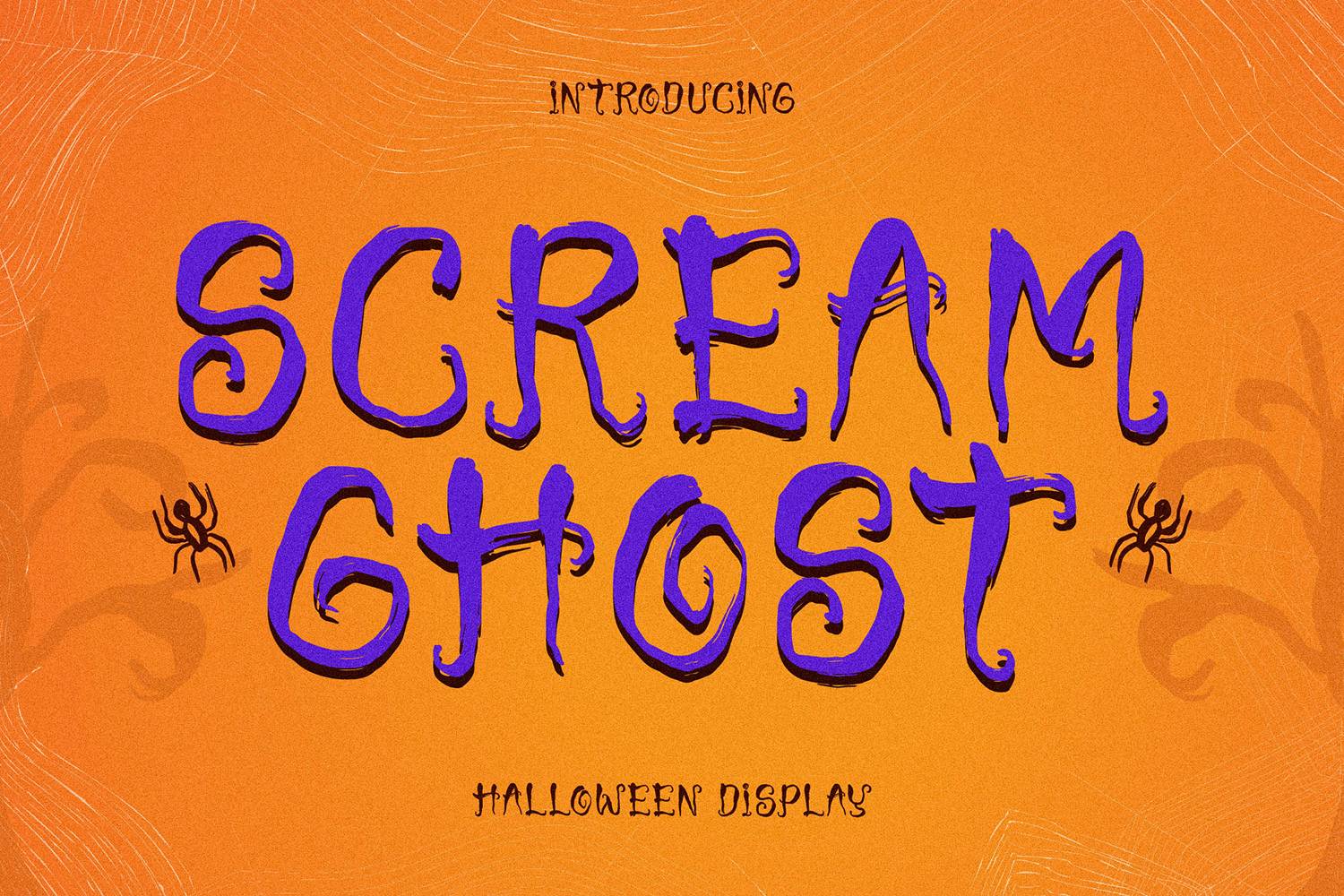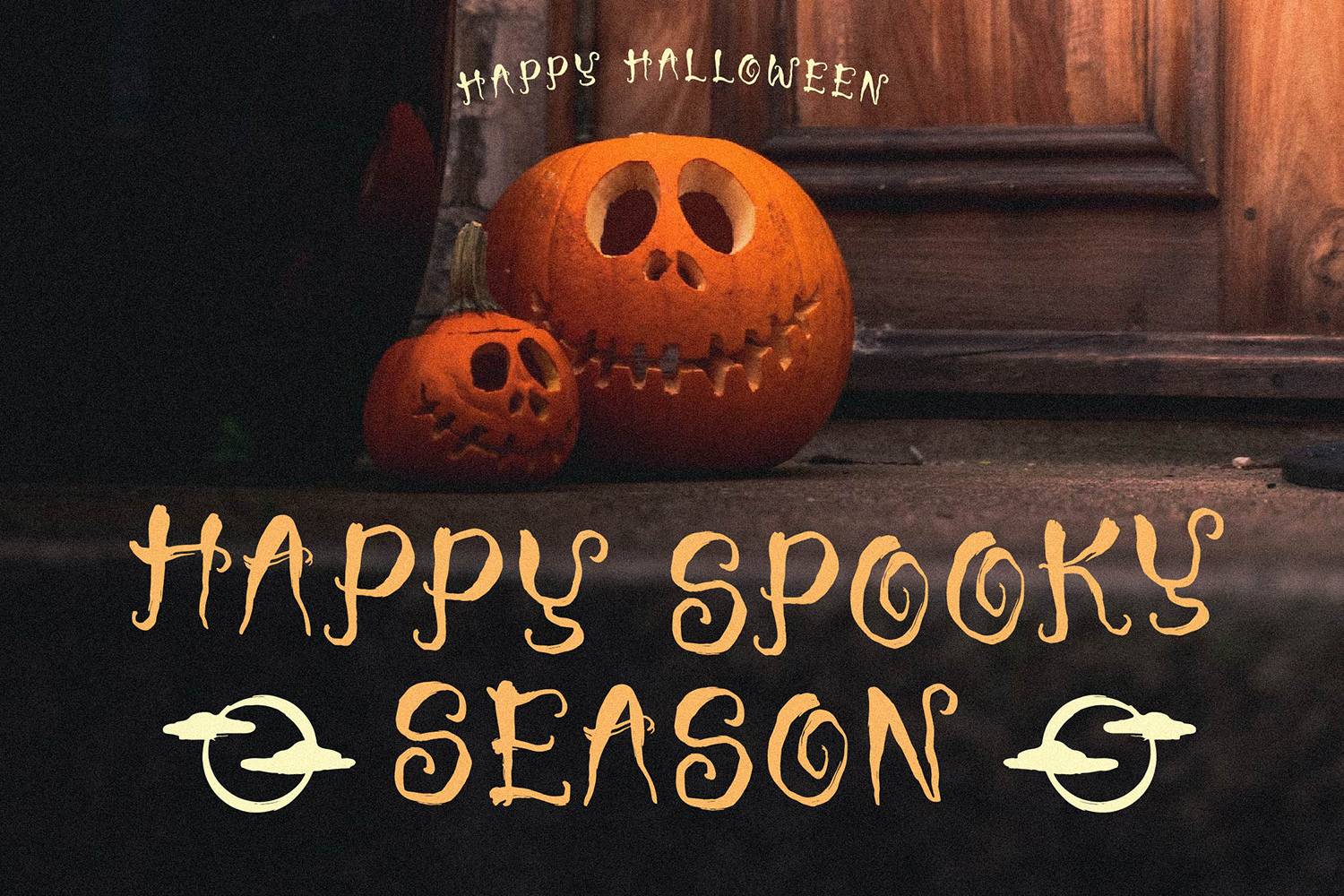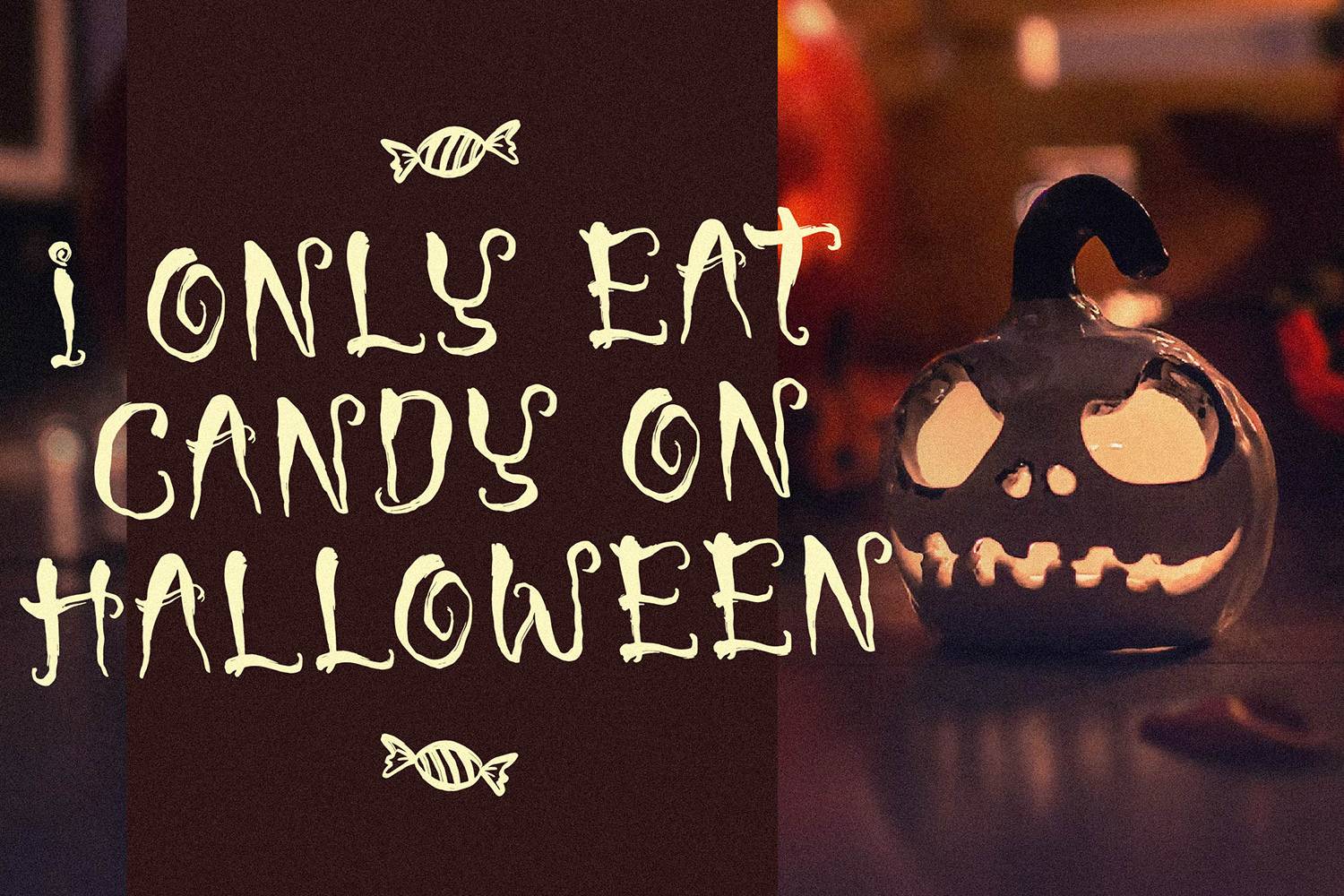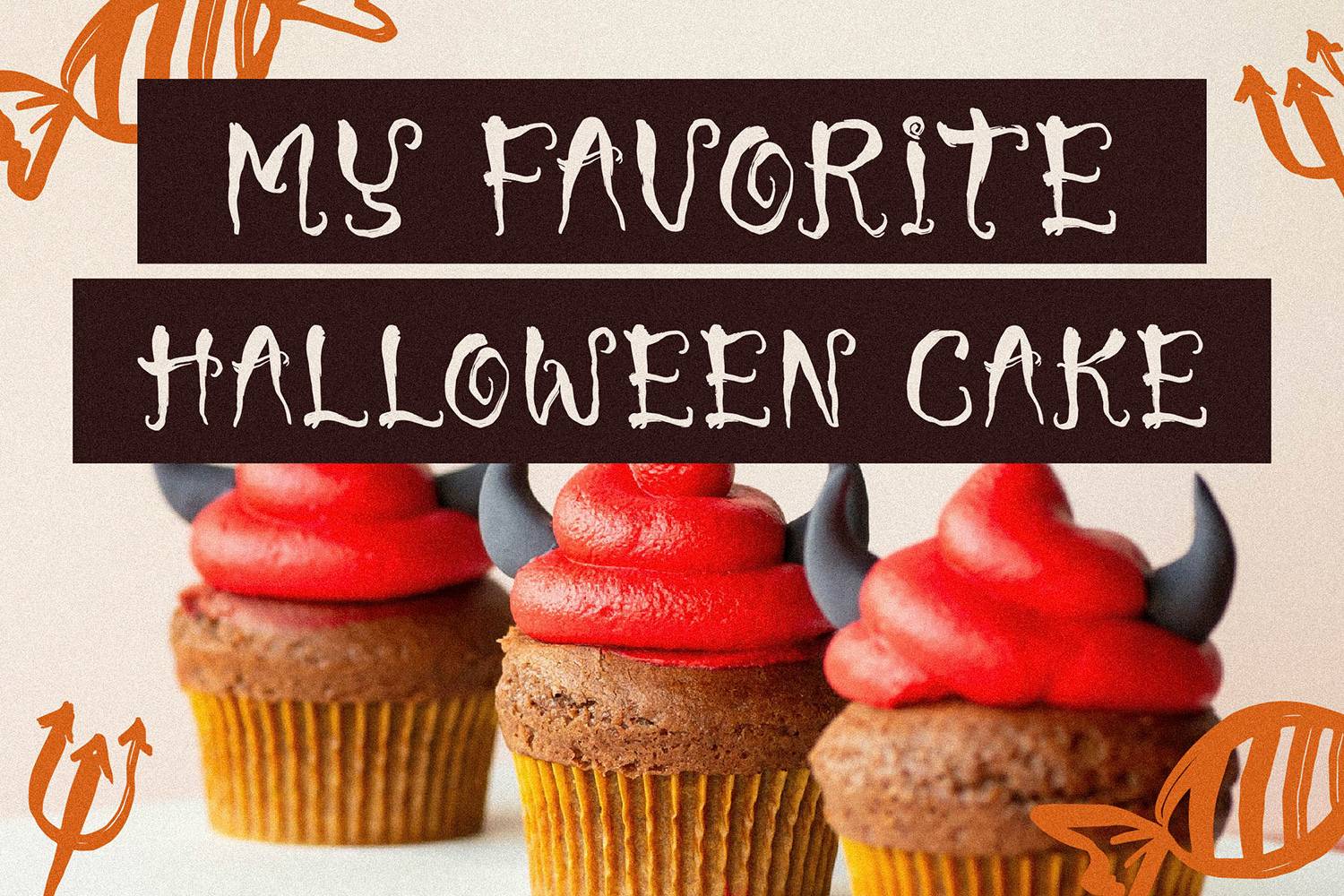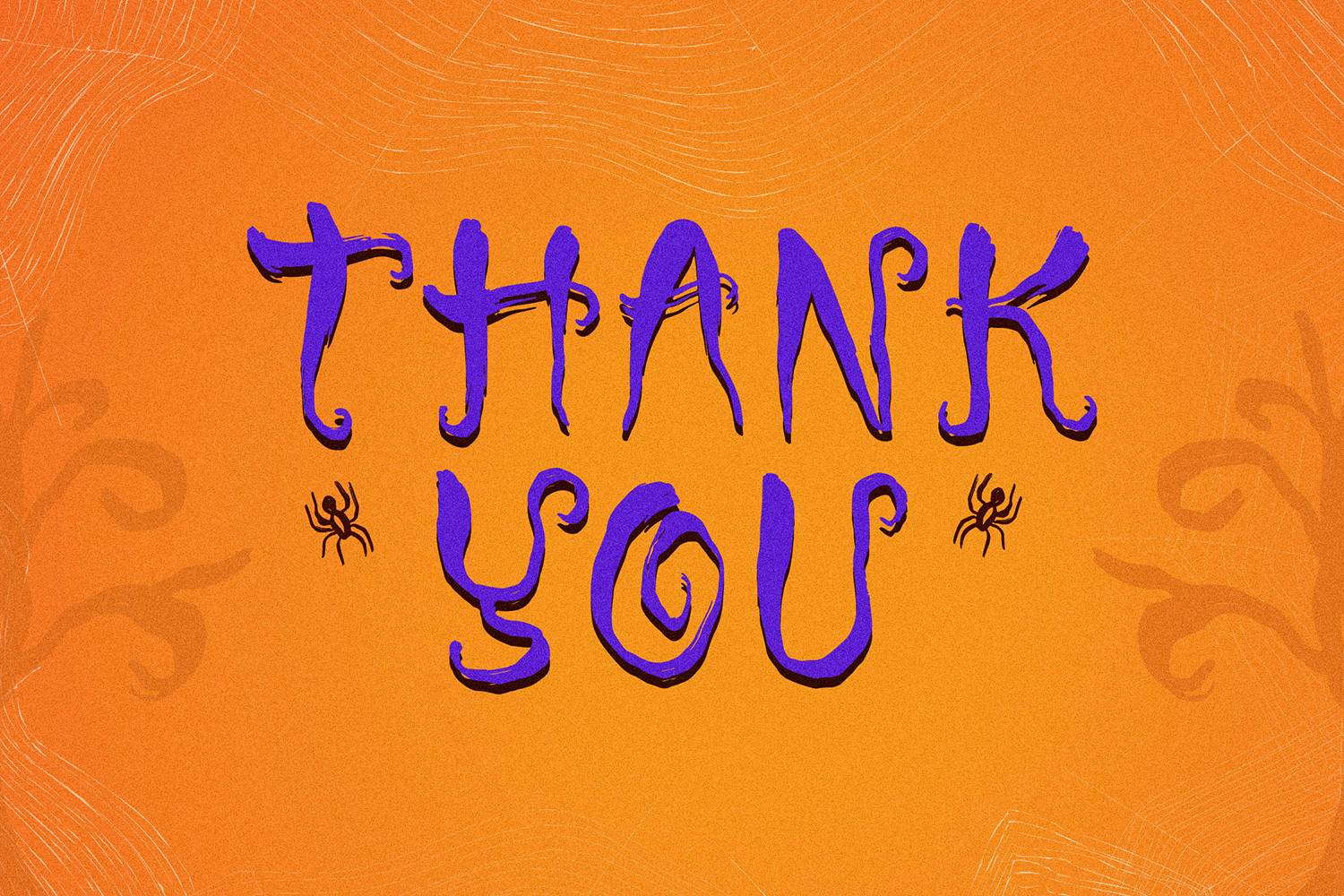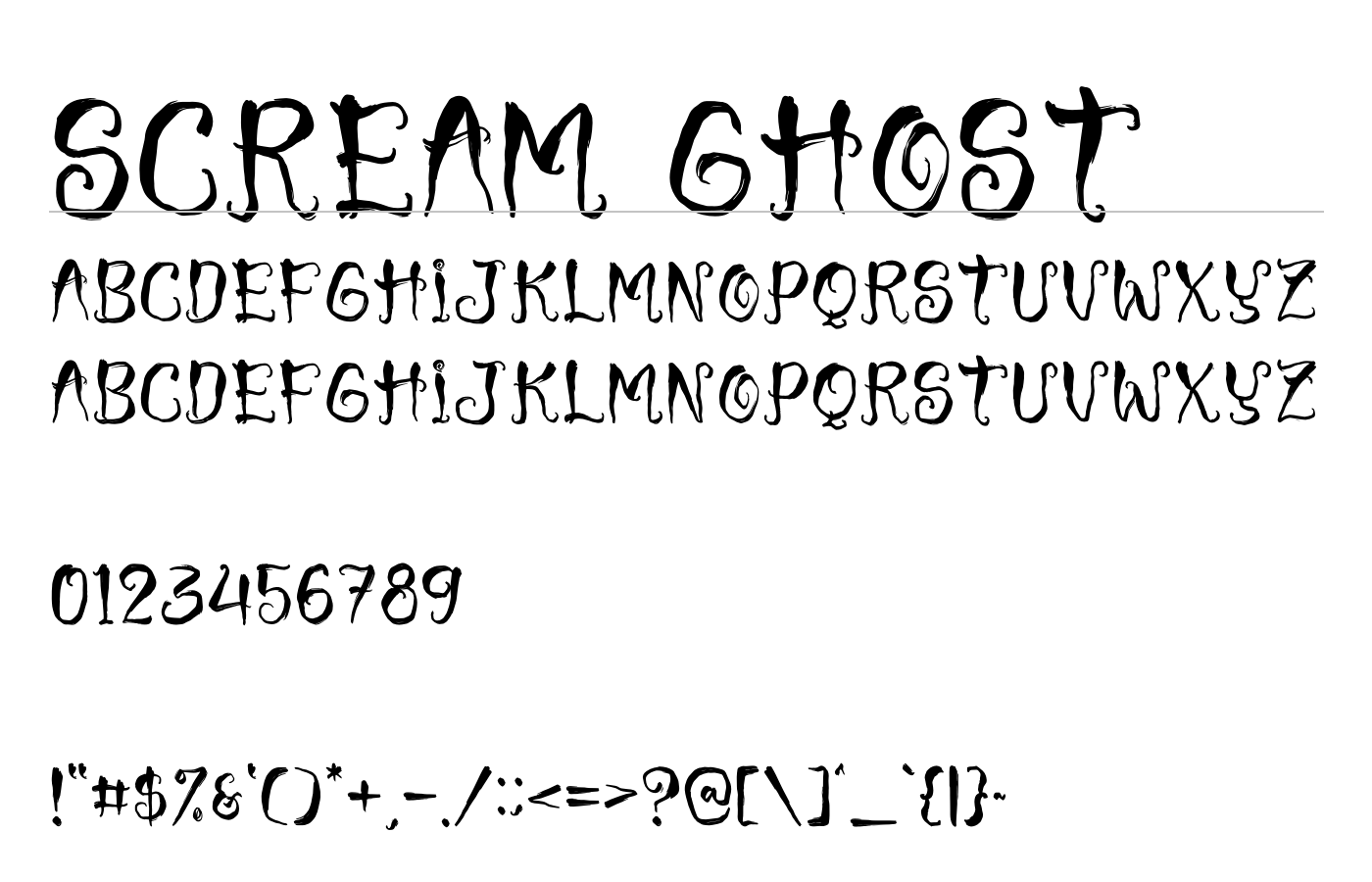
Scream Ghost is a playful and quirky hand-drawn display font with a spooky, whimsical vibe perfect for Halloween or fun, eerie themes. Its irregular strokes and curling serifs give it a lively, organic feel, making it ideal for eye-catching headlines, posters, and creative branding that wants to convey personality and a touch of mystery. This font works best in decorative contexts where its distinctive style can shine and add a spirited, unconventional charm.
Scream Ghost Font
About Scream Ghost Font